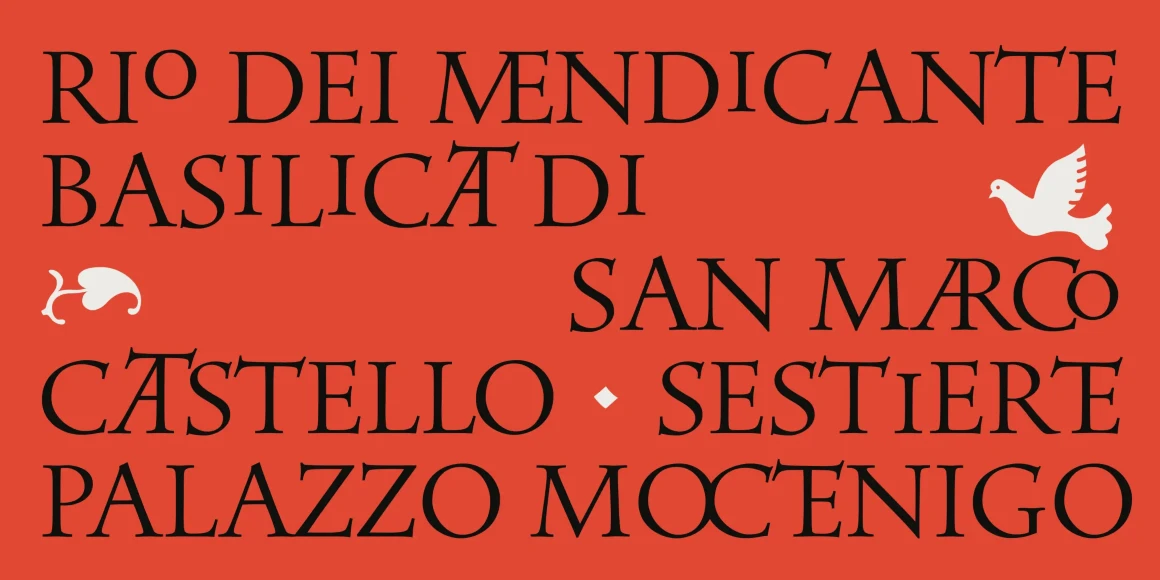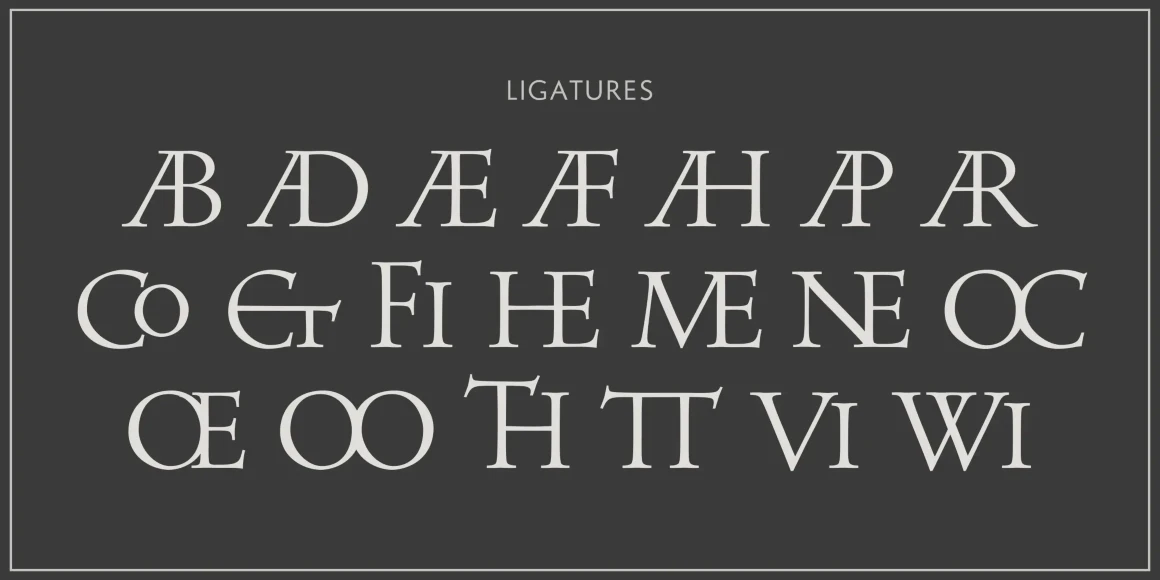
Venetian Titling
From Nonpareil Type
Venetian Titling is an all-caps family rooted in the calligraphic versal tradition, where the structure of inscribed letters meets the modulation of the pen. Pronounced serifs and measured proportions establish a strong horizontal rhythm, while the handwritten inflection gives lines of text both stability and movement. A set of alternates — taller letterforms and distinctive ligatures — allows compositions to shift in tone from restrained to expressive, all within a coherent visual voice.